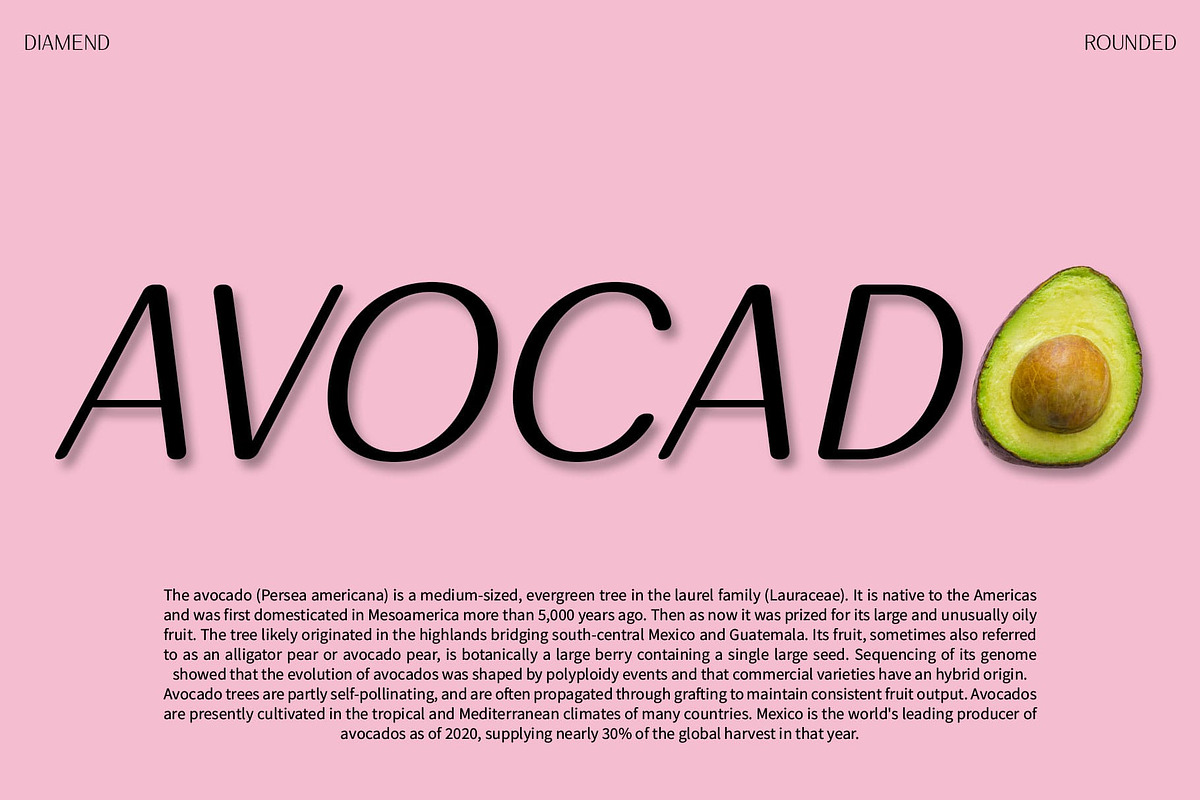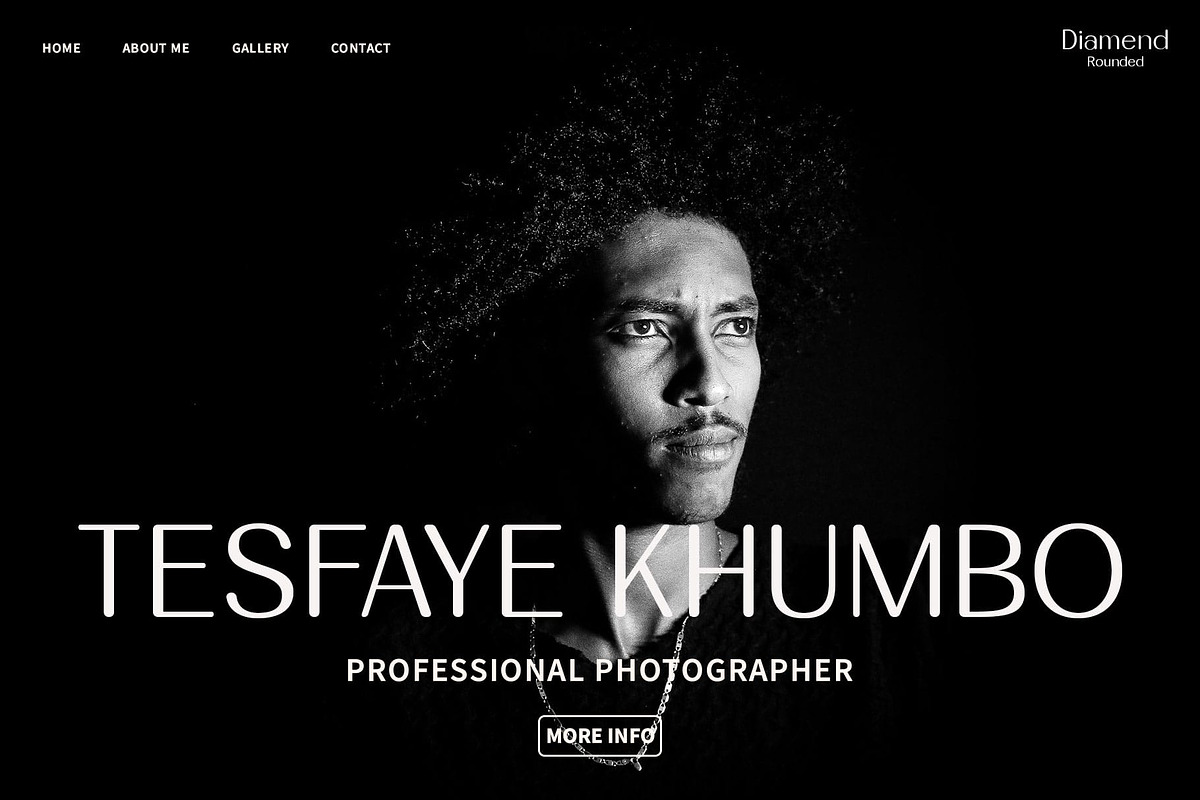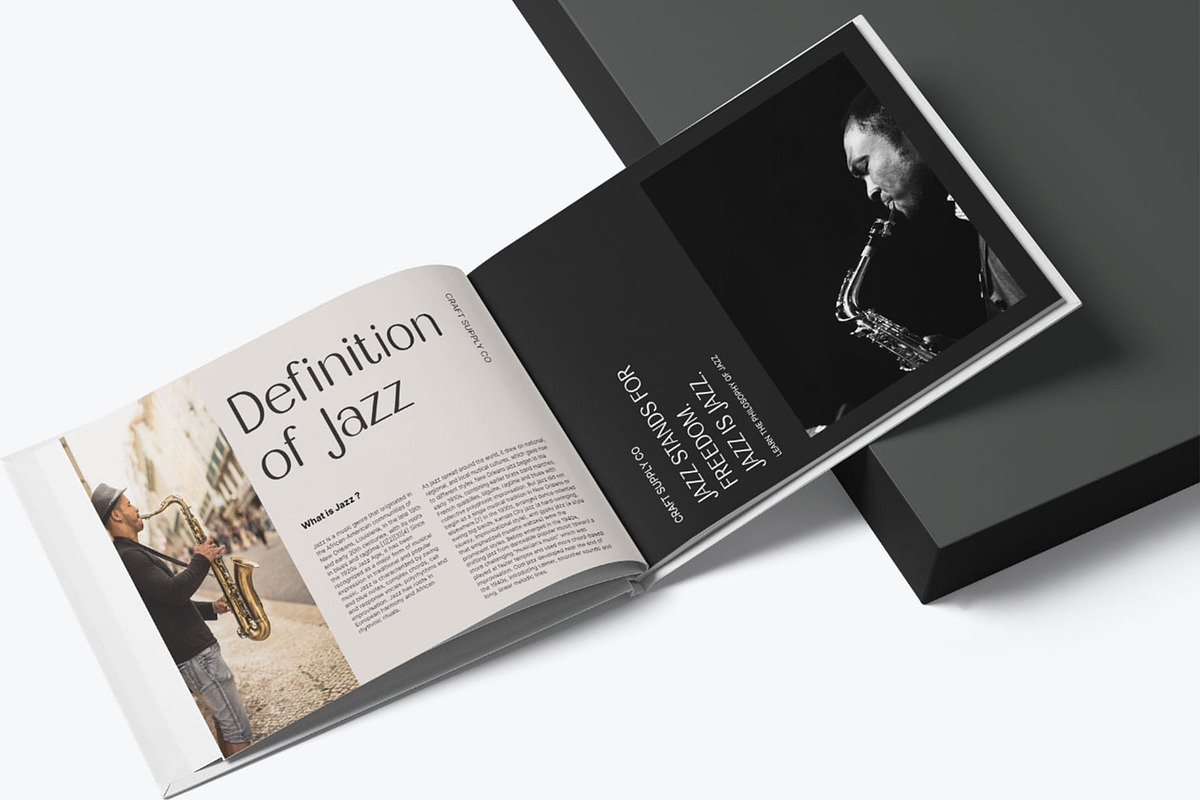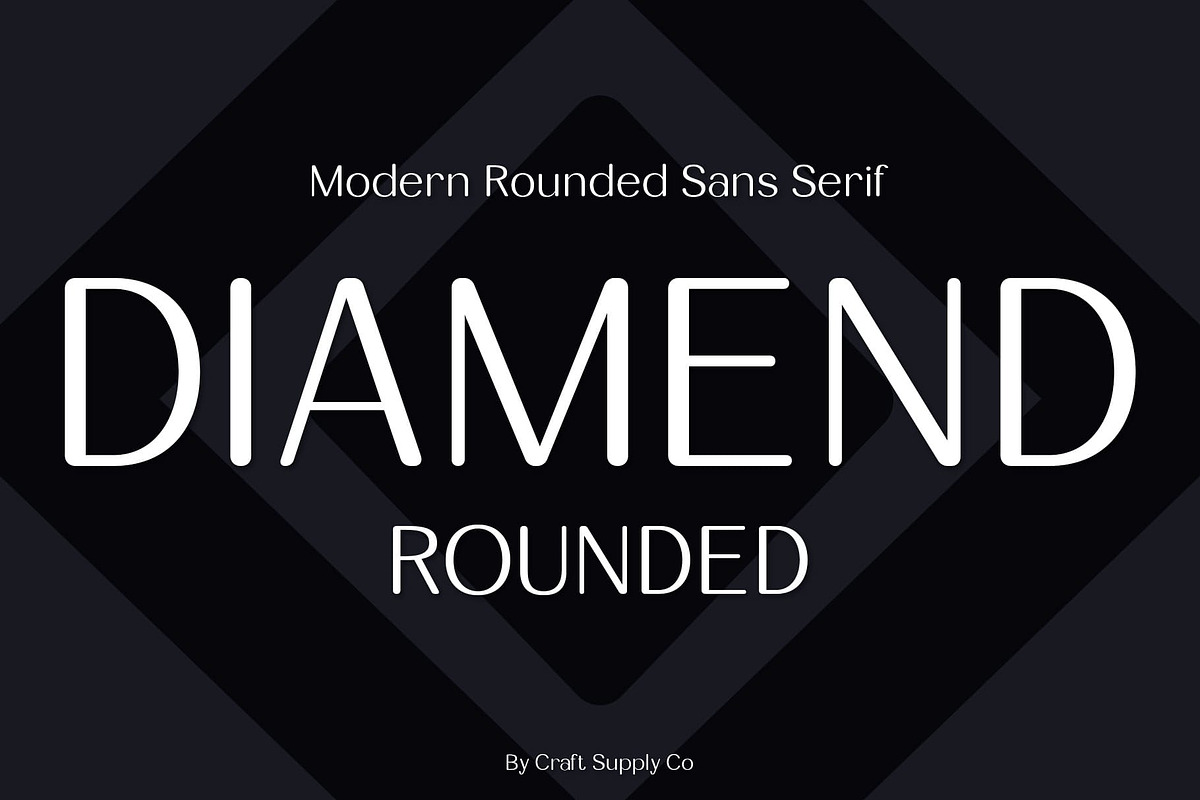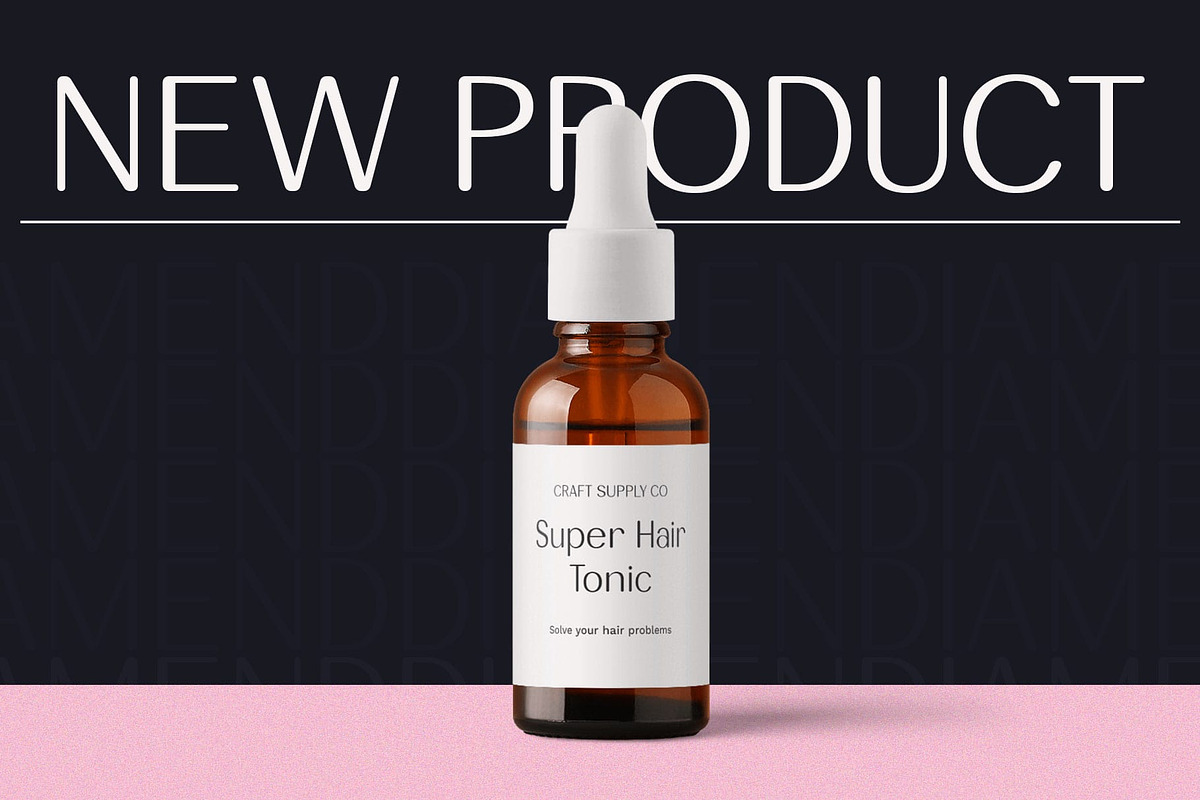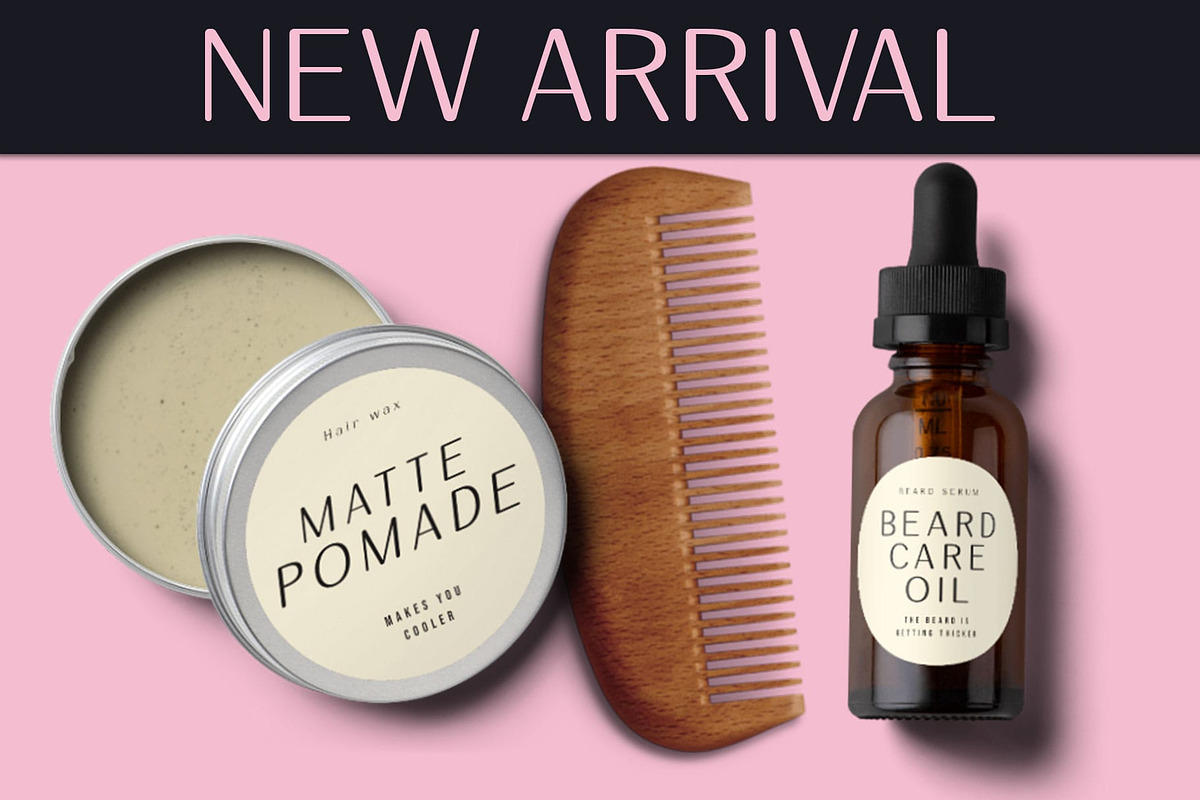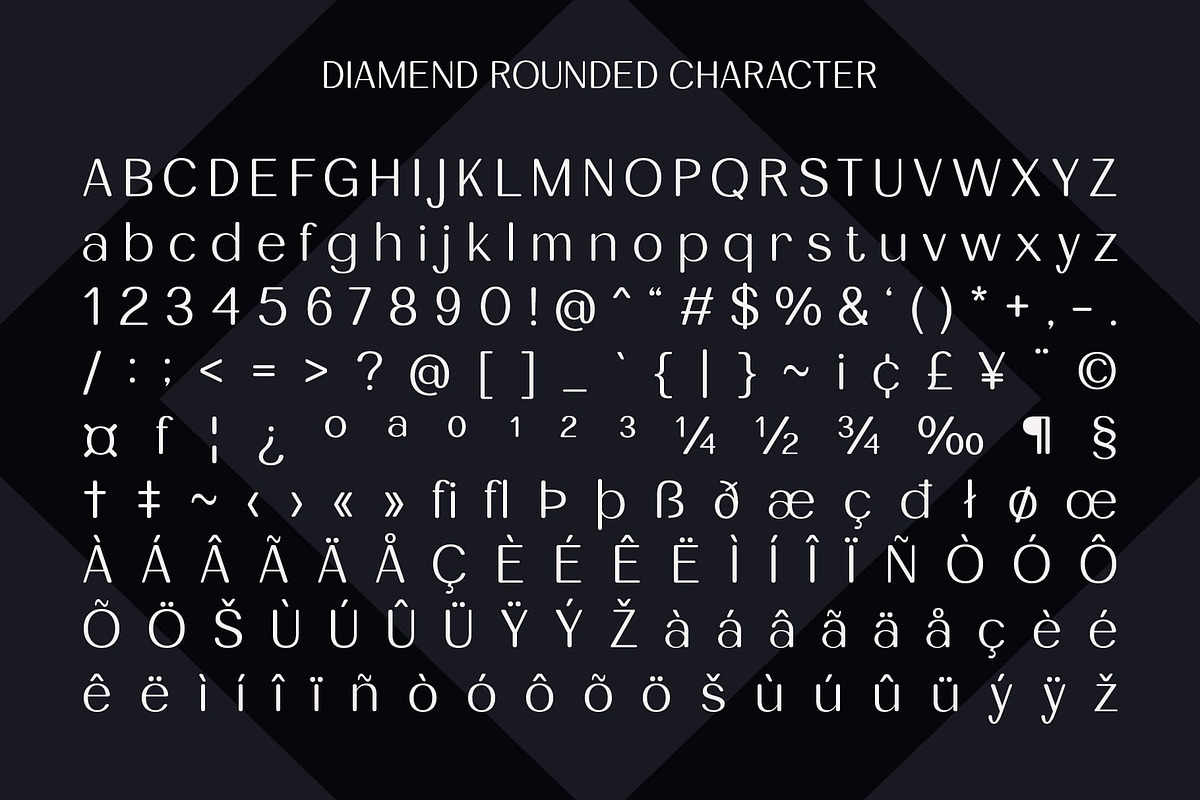
Diamend Rounded
Introducing Diamend Rounded: A Subtle Elegance
Smooth and Refined Diamend Rounded presents a sleek and refined sans serif appearance, with its rounded sans serif style exuding a sense of softness and sophistication.
Elegance in Simplicity Embracing simplicity with elegance, This font captivates with its clean lines and rounded edges, making it a versatile choice for a wide range of design projects.
Versatile Application Suitable for various applications, This font shines in both digital and print media, from website headlines to branding materials. Its elegant demeanor elevates any design effortlessly.
Timeless Appeal With its timeless appeal, This font stands the test of time, offering a modern twist on classic sans serif typography. Its rounded edges add a touch of warmth and approachability to any visual composition.
The Epitome of Elegance This font emerges as the epitome of elegance in the world of sans serif typography. Its rounded edges, combined with a refined demeanor, make it a versatile and timeless choice for designers seeking to infuse their projects with understated sophistication. Experience the subtle elegance of Diamend Rounded and elevate your designs to new heights.